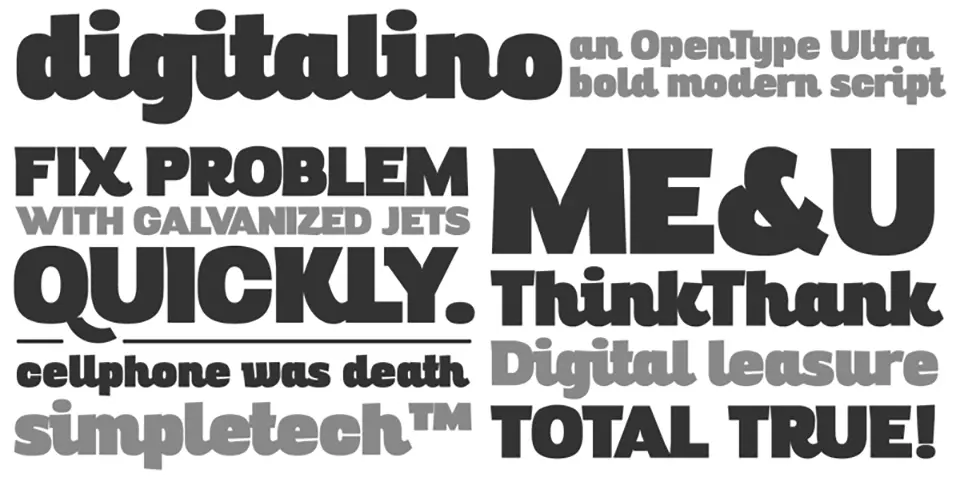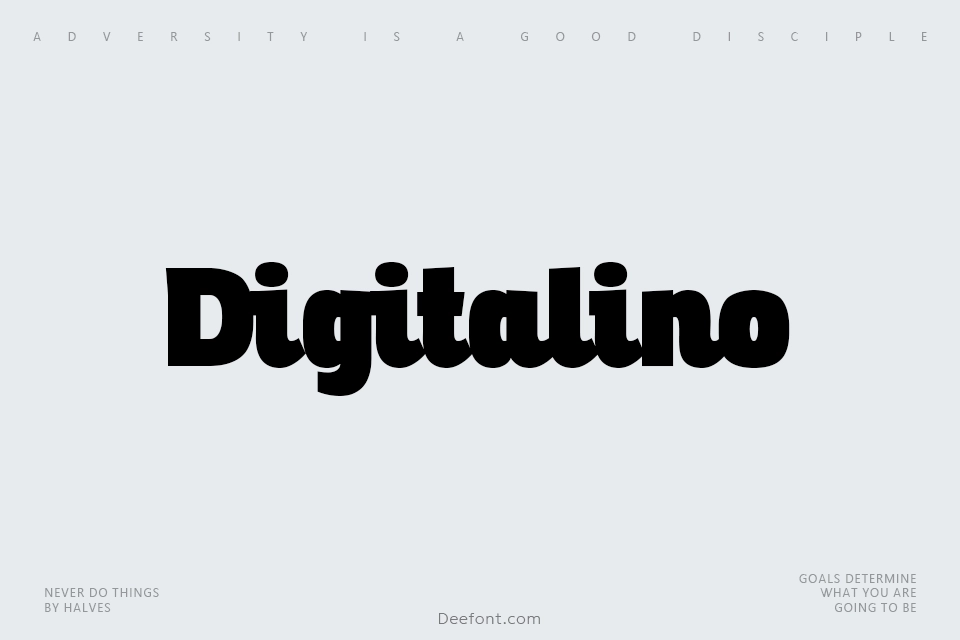
Digitalino Font
Digitalino is a contemporary display typeface created by Zetafonts, featuring bold and distinctive letterforms designed for eye-catching headlines and creative projects. This vibrant font combines modern aesthetics with decorative charm, making it ideal for designers seeking unique visual impact. With its digital-inspired character and clean lines, Digitalino serves as a perfect choice for branding, editorial design, and artistic compositions that demand strong typographic presence and contemporary style.